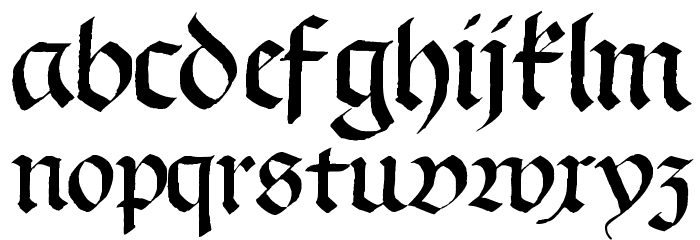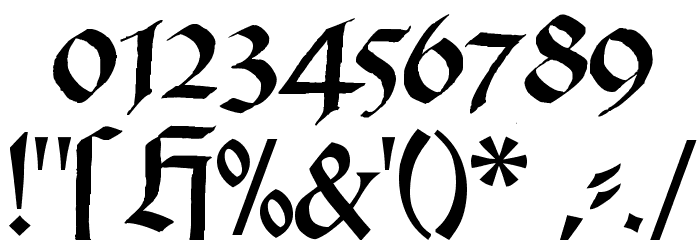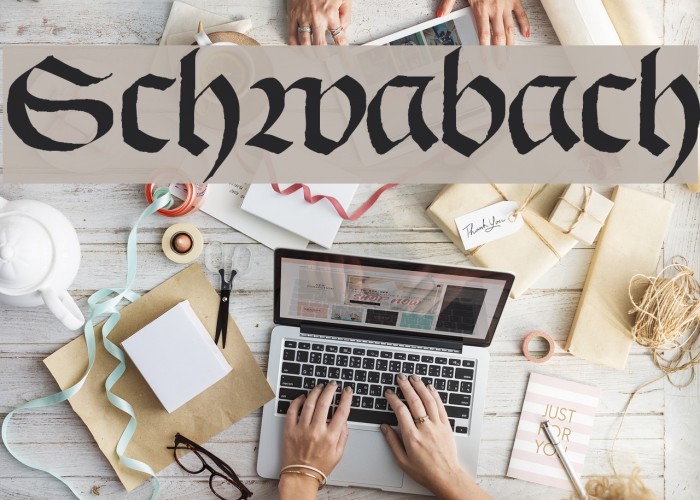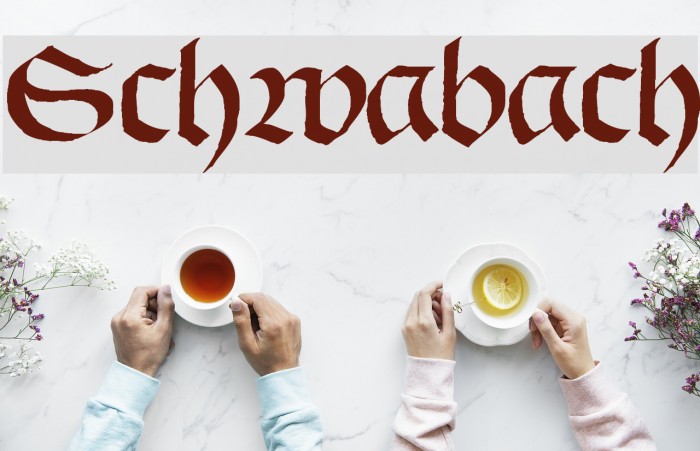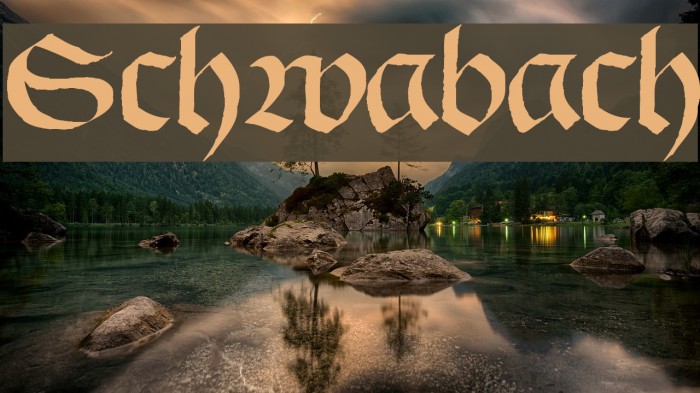
Schwabach Font
This font is a classic example of Blackletter style, characterized by its intricate and ornate letterforms. The strokes are bold and angular, with a distinct medieval aesthetic that evokes a sense of tradition and history. The uppercase letters are particularly elaborate, featuring sharp serifs and decorative elements that enhance their visual impact. The lowercase letters maintain a consistent style, with thick strokes and pointed terminals. Numbers and special characters are designed to match the overall theme, ensuring a cohesive look across all glyphs. This font is perfect for projects that require a touch of elegance and historical flair.
A bold and ornate Blackletter font with a medieval aesthetic.
- Proposed Projects: Ideal for historical documents, wedding invitations, book covers, and branding that requires a traditional or gothic touch.
- Category: Blackletter
- Overall Style: Classic
- Use Case: Logos, Headlines, Decorative purposes